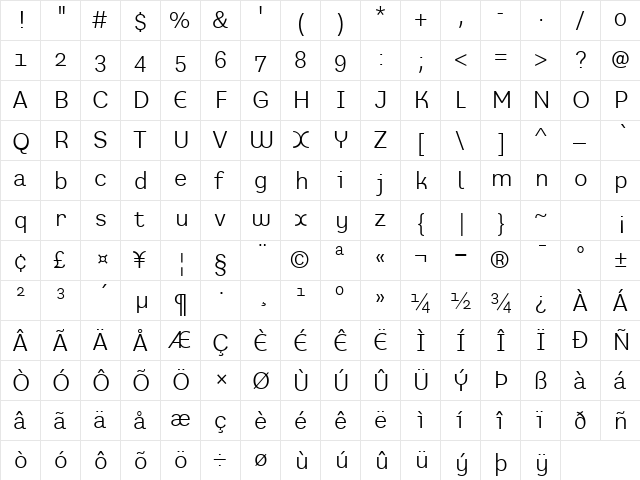
PrefaceBook Regular
Design Context for PrefaceBook Typeface
PrefaceBook takes a measured approach to typography — its balanced proportions and neutral character make it a reliable workhorse for both digital and print work.